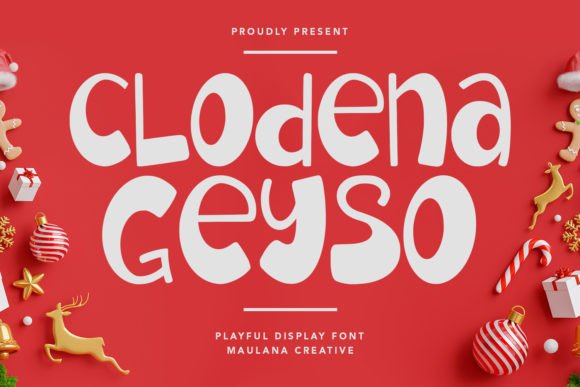
Prepare to be mesmerized by Clodena Geyso, the ultimate display font family hailed as the Best Font For Logo Design in 2017 by experts and creatives alike. Crafted by the ingenious minds at Maulana Creative, Clodena Geyso is not just a font; it's an artistic masterpiece waiting to unleash your creativity.
With its bold strokes, playful characters, and a touch of ligatures and alternates, Clodena Geyso bursts onto the scene as a captivating display font. Its versatility knows no bounds, effortlessly adapting to a myriad of design projects. Whether you're crafting logos that demand attention, captivating social media posts that ignite engagement, or movie and book titles that leave a lasting impression, Clodena Geyso is your ultimate companion.
Step into the world of digital artistry and let Clodena Geyso transform your designs into stunning masterpieces. Its ability to seamlessly blend with script or serif fonts makes it the perfect choice for secondary text, adding depth and intrigue to your creations. Unleash your imagination and watch as Clodena Geyso elevates your projects to unprecedented heights.
Don't settle for ordinary fonts that blend into the background. Embrace the extraordinary with Clodena Geyso, the font that commands attention and captivates audiences. Let your creative spirit soar and witness the transformation of your designs into works of art.